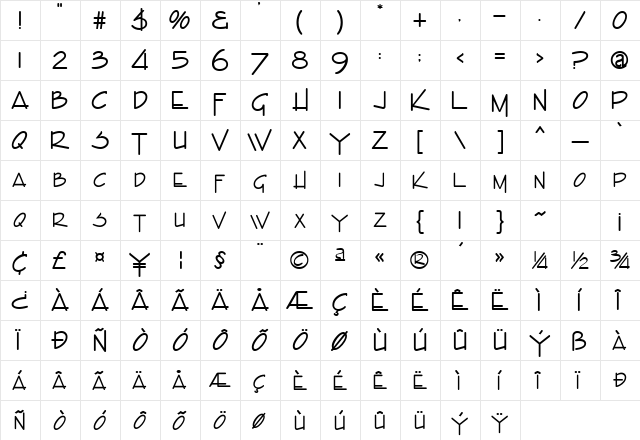
West Side Normal Font Preview
West Side Normal
Design Context for West Side Typeface
West Side is a composed and adaptable typeface that performs quietly and consistently across a wide range of design contexts.